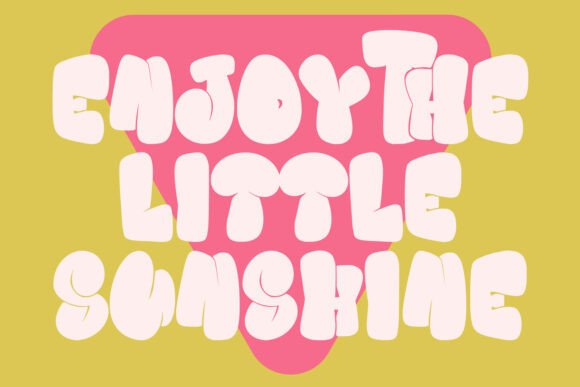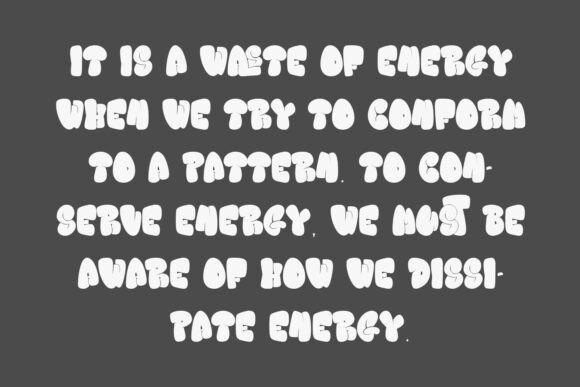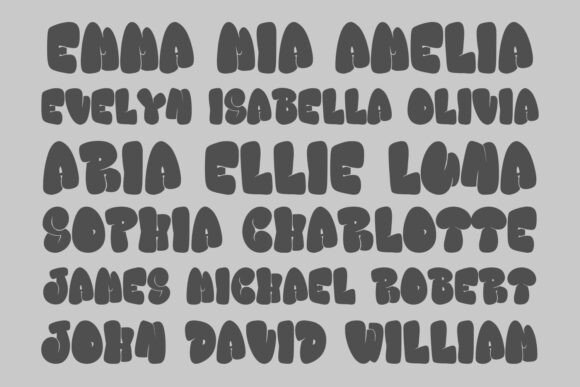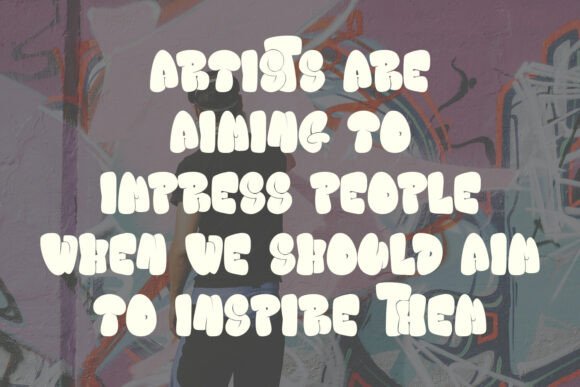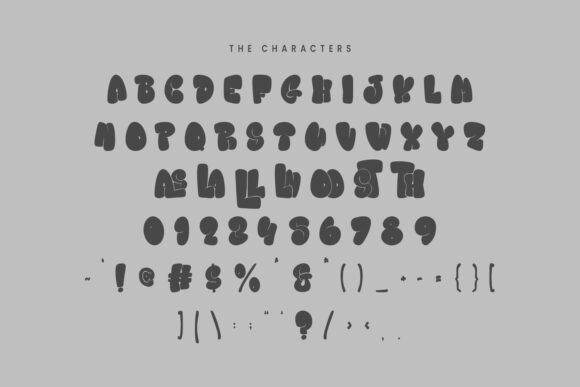
Unleashing the Power of Urban Expression
You’ve got that one idea, that spark of creativity that refuses to be contained. You see it in your mind’s eye – a bold, eye-catching design that demands attention. For designers and artists, those moments are what drive us to push the boundaries of what’s possible. And when it comes to bringing that vision to life, the right font can make all the difference.
Enter Bloochas Font, a dynamic display font that embodies the raw energy of street graffiti. With its strong, urban-inspired lettering, Bloochas Font is the perfect choice for posters, artwork, and any project that needs a cool, street-style look. Its versatility and bold character make it an invaluable asset for designers looking to add some grit and attitude to their work.
Bloochas Font Key Features
- Font Family: Bloochas Font is a unique, handwritten font family that offers a variety of styles, including regular, bold, and italic.
- Character Set: Bloochas Font includes a comprehensive character set, covering Latin, Cyrillic, and Greek alphabets, as well as punctuation and symbols.
- Unique Characteristics: The font features a distinctive, handwritten style with irregular letterforms, making it ideal for creative and artistic projects.
Bloochas Font Review
First impressions of the Bloochas Font are quite promising. The font’s unique blend of rounded and sharp edges ✨ adds a touch of whimsy and playfulness to any design. The rounded forms help to create a sense of friendliness and approachability, making it suitable for various applications, including children’s books and educational materials.
One of the standout features of Bloochas Font is its readability ✨. The font is designed to be highly legible, even at smaller font sizes, making it an excellent choice for body text and other large blocks of content. Additionally, the font’s x-height is relatively high, which helps to improve readability and reduce eye strain.
- ⚠️ Limited language support: Bloochas Font currently only supports Latin-based languages, which may be a limitation for designers working with non-Latin scripts.
- ⚠️ Limited font size range: The font’s design may not be suitable for extremely large or extremely small font sizes, which could lead to readability issues.
- ⚠️ Limited customization options: Bloochas Font does not offer a wide range of font styles or weights, which may limit its versatility in certain design applications.
Overall, the Bloochas Font is a solid choice for designers looking for a unique and readable font. While it has some limitations, its strengths make it a great option for various design applications. With some careful planning and consideration, Bloochas Font can be a valuable addition to any designer’s toolkit.
Tips for Getting the Most Out of Bloochas Font
Here are some tips for getting the most out of Bloochas Font:
- Use Bloochas Font in combination with other fonts to create a unique and eye-catching design.
- Take advantage of the font’s unique characteristics, such as its bold and playful style, to add visual interest to your design.
Bloochas Font is ideal for use in:
- Social